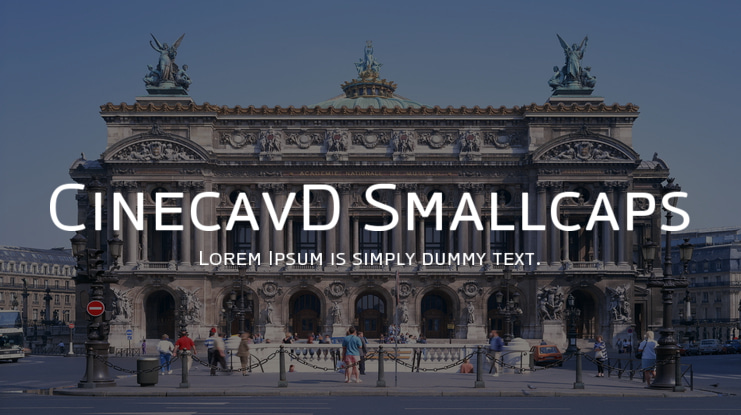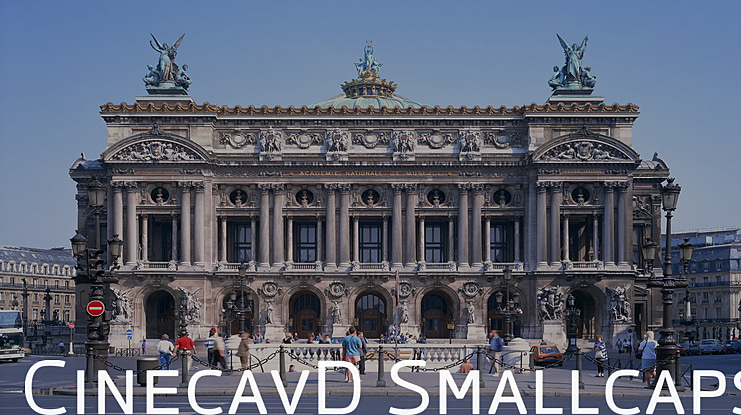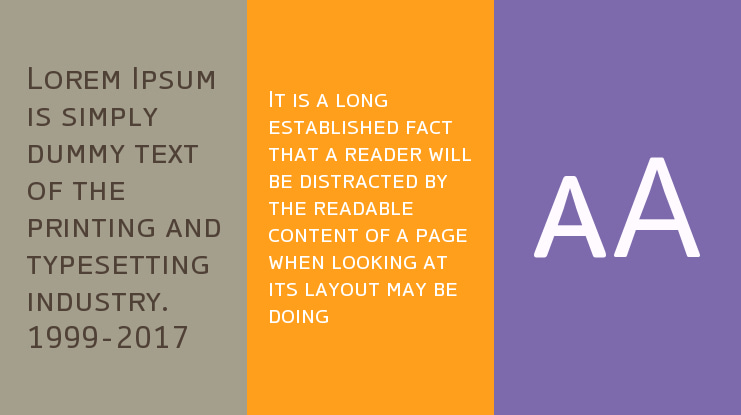
CinecavD Smallcaps Font
Cinecav Small Caps is built off of Cinecav Sans with a set of small capitals in place of the lowercase set. The stem width of the small caps is identical to the stem width of the capitals. In many fonts, the small caps have slightly thinner stems than the capitals, but with Cinecav Small Caps an identical stem width worked better on TV.